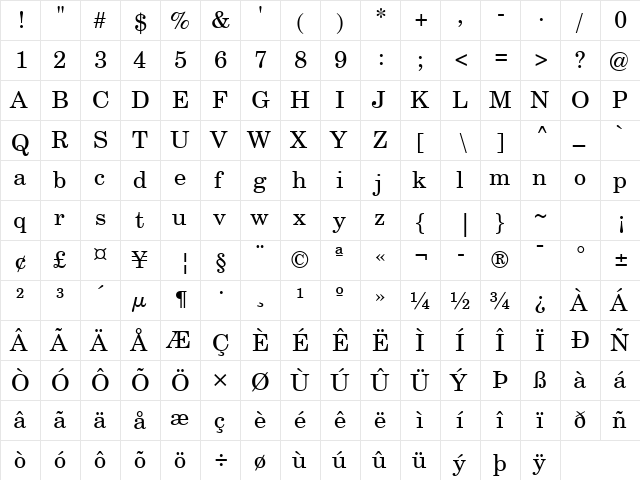
Century Schoolbook SWA Roman
Design Context for Century Schoolbook SWA Typeface
Century Schoolbook SWA offers clean, dependable letterforms without strong stylistic allegiance, making it a practical choice for designers who need flexibility.